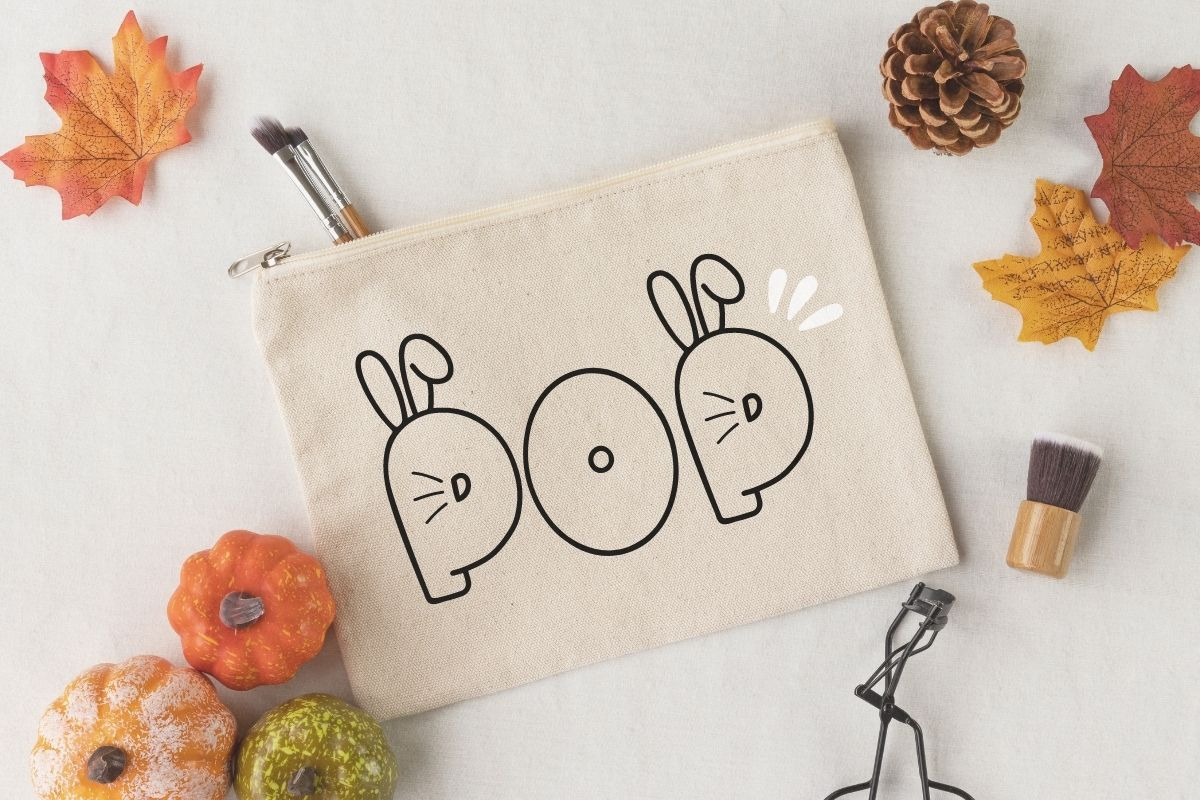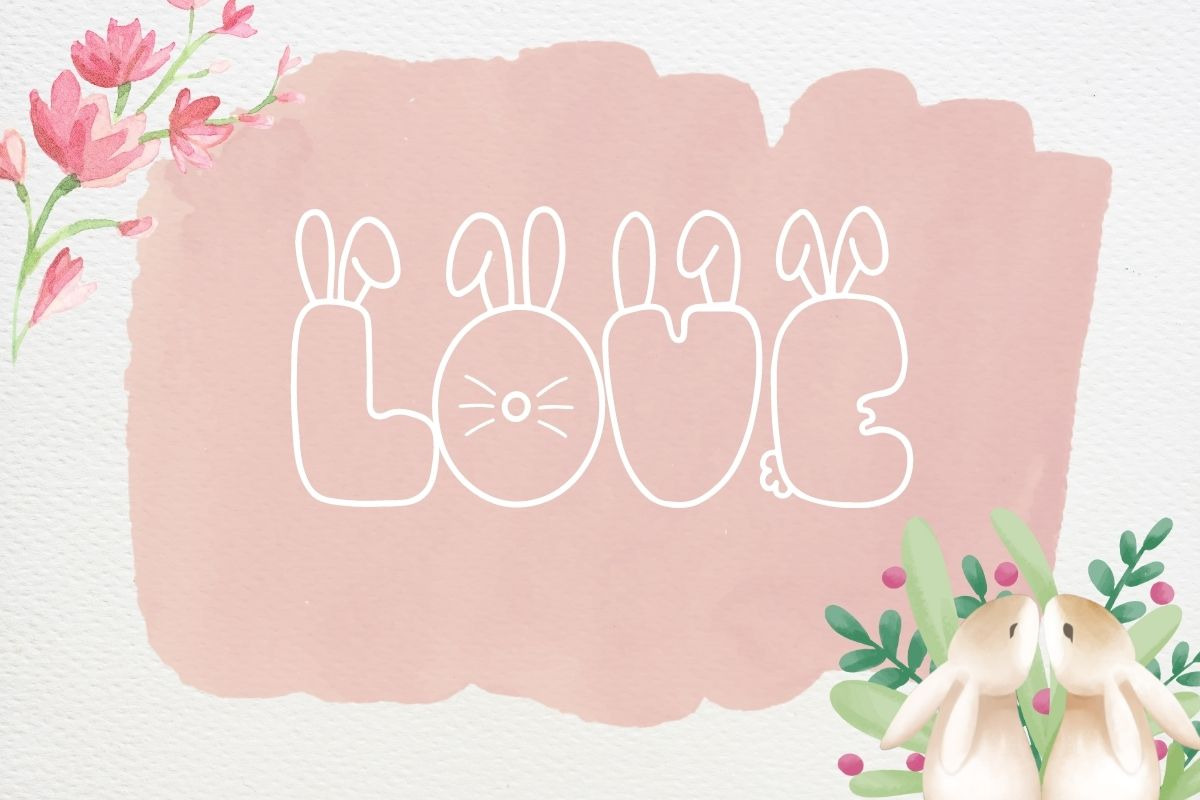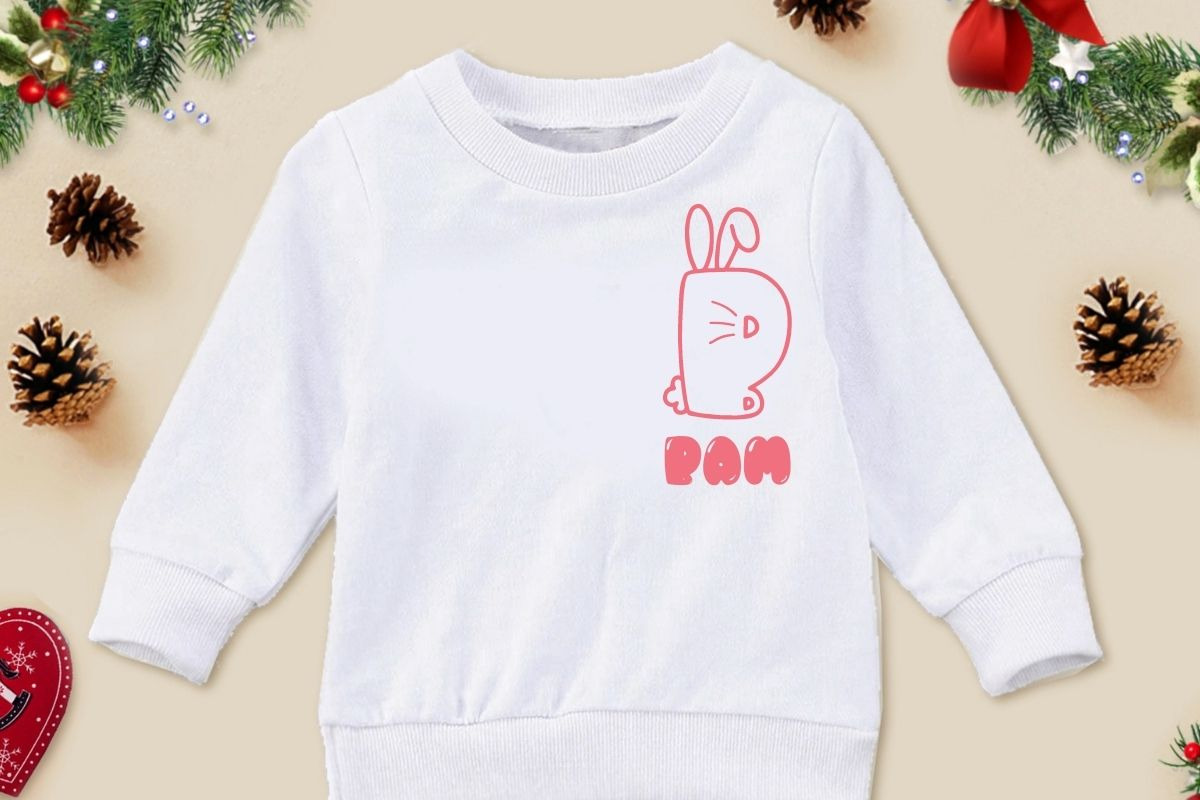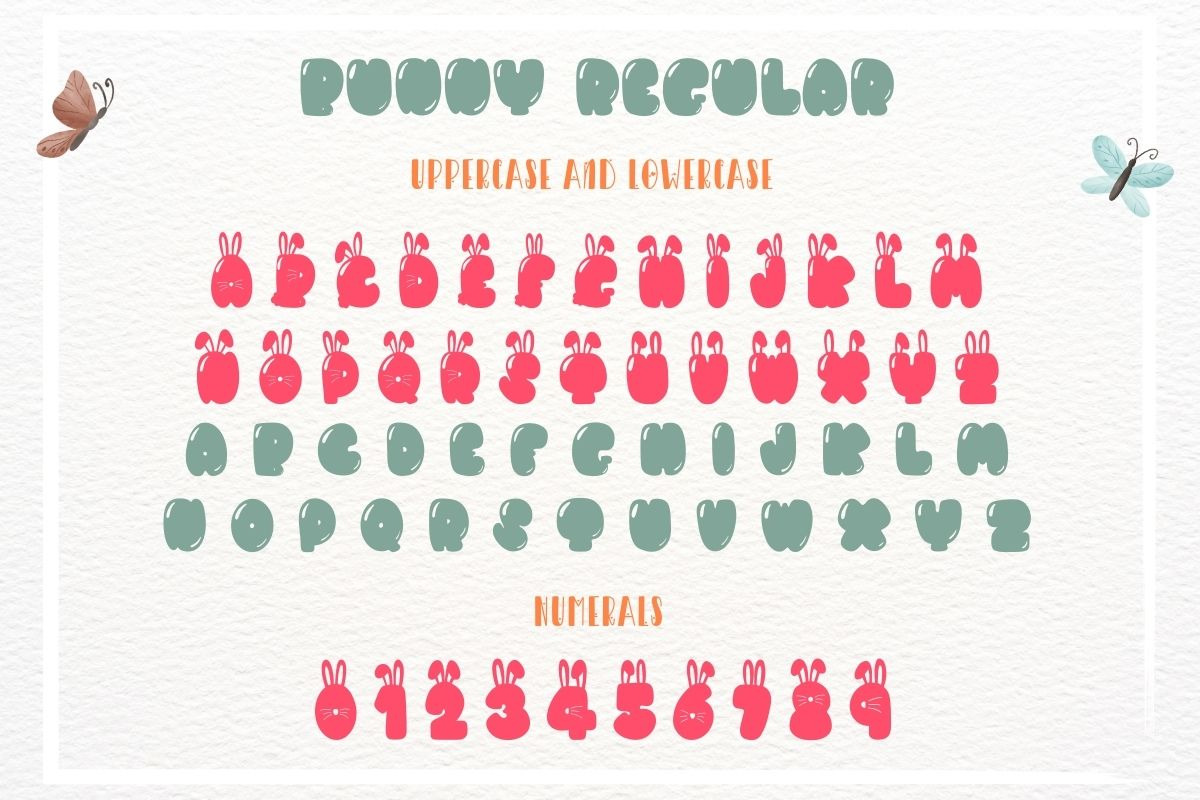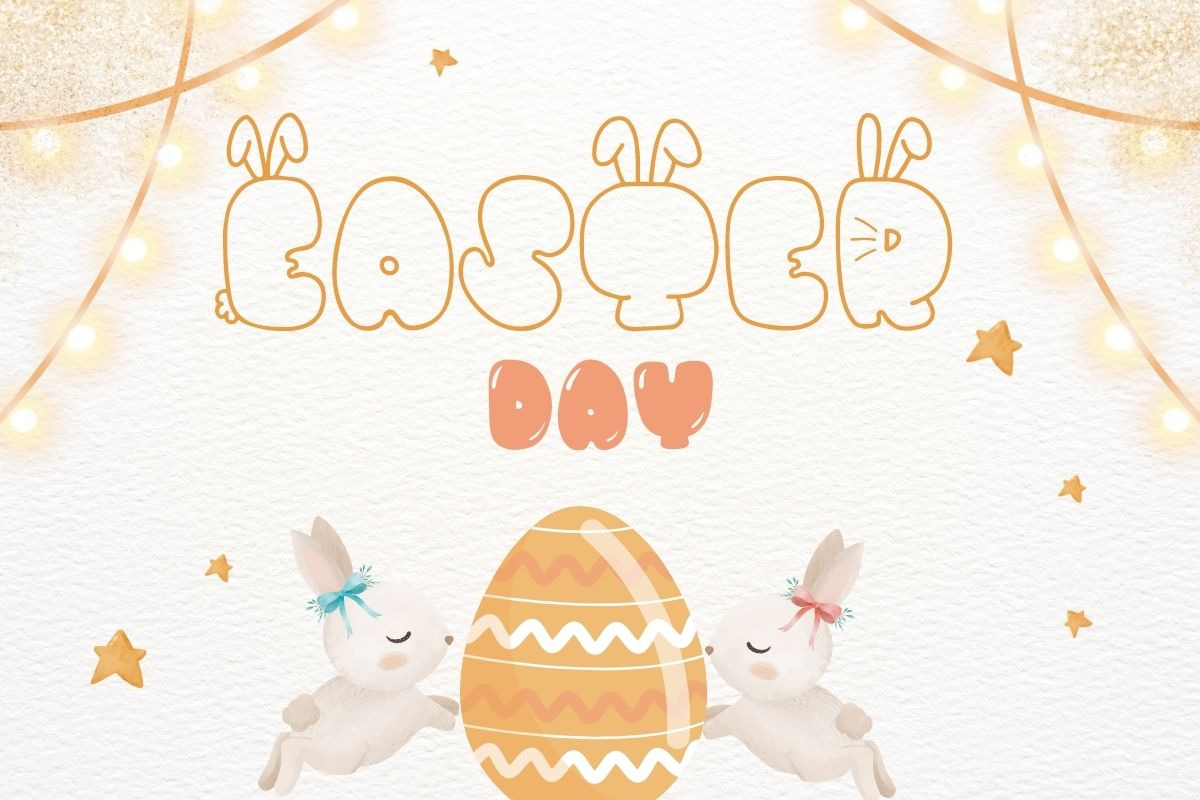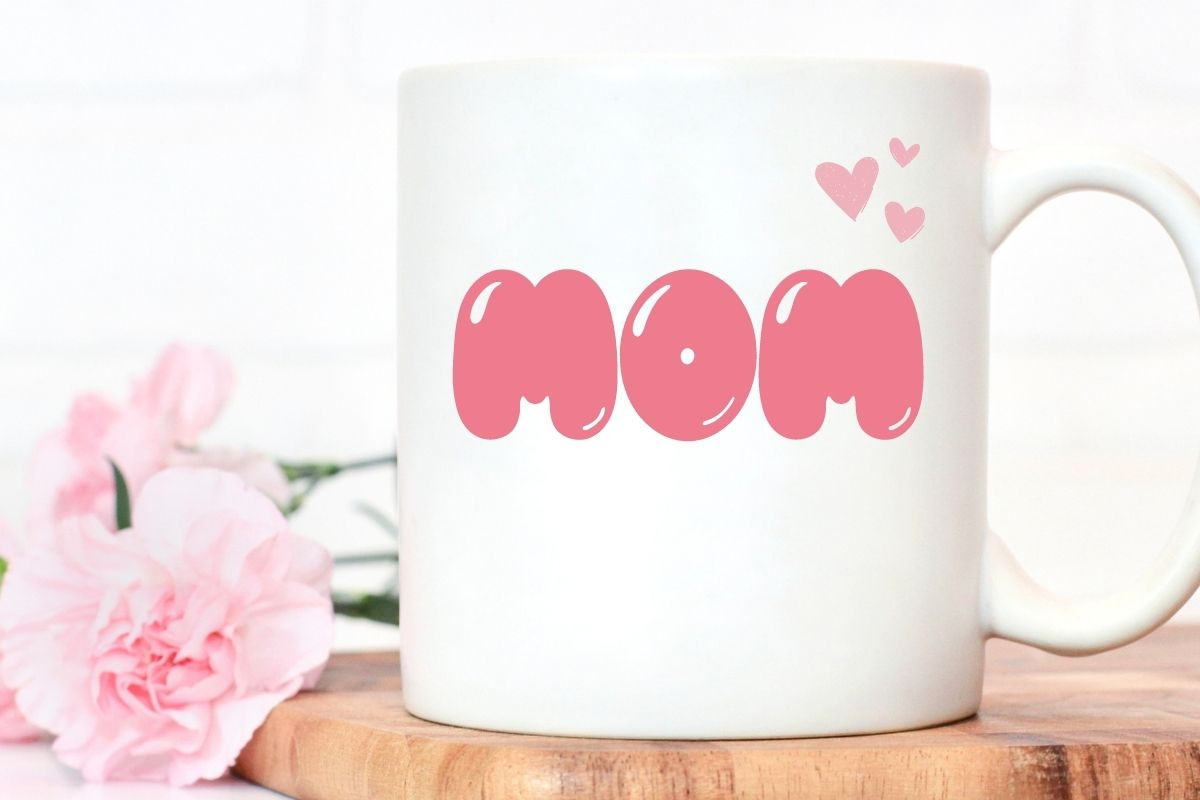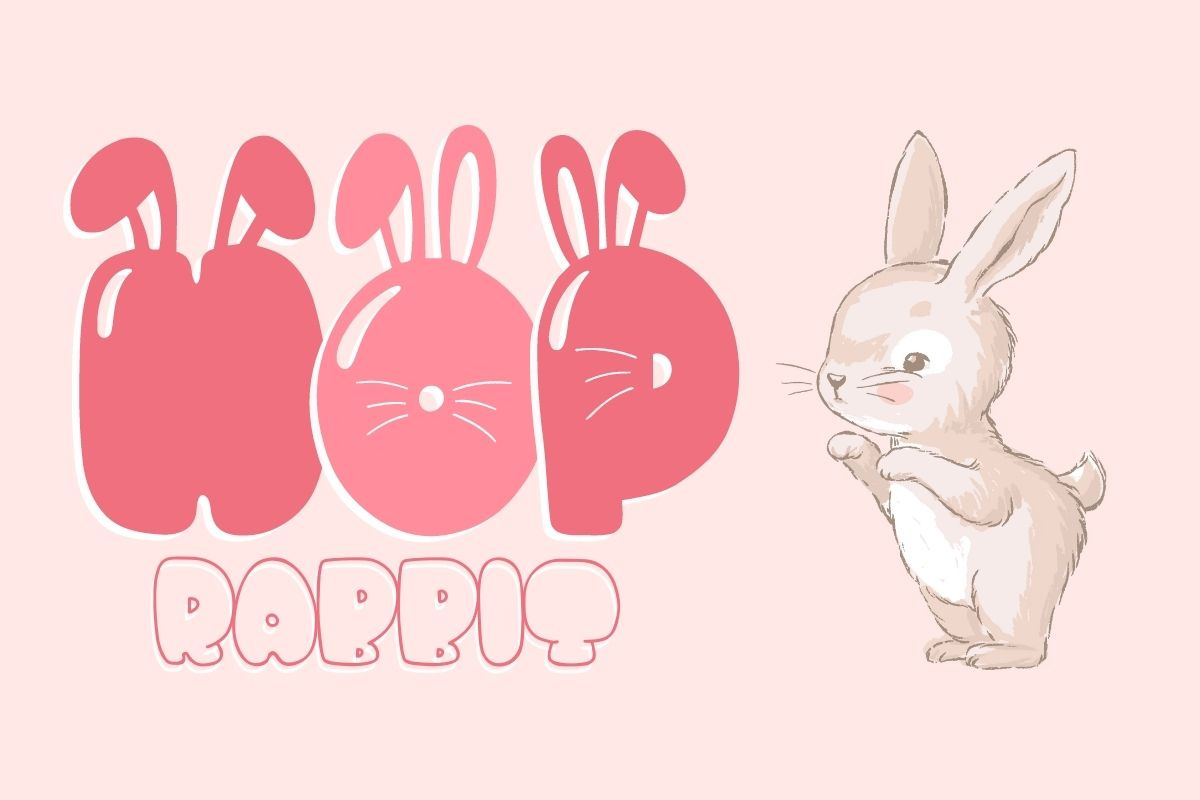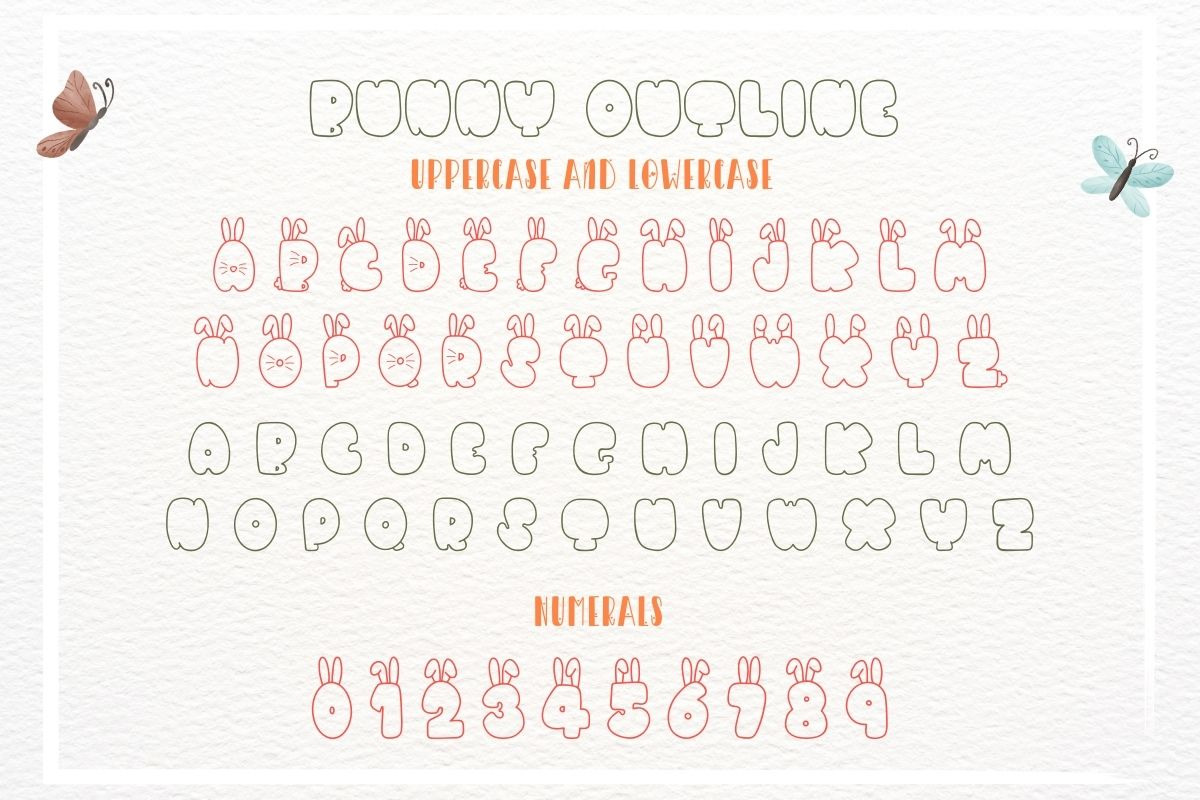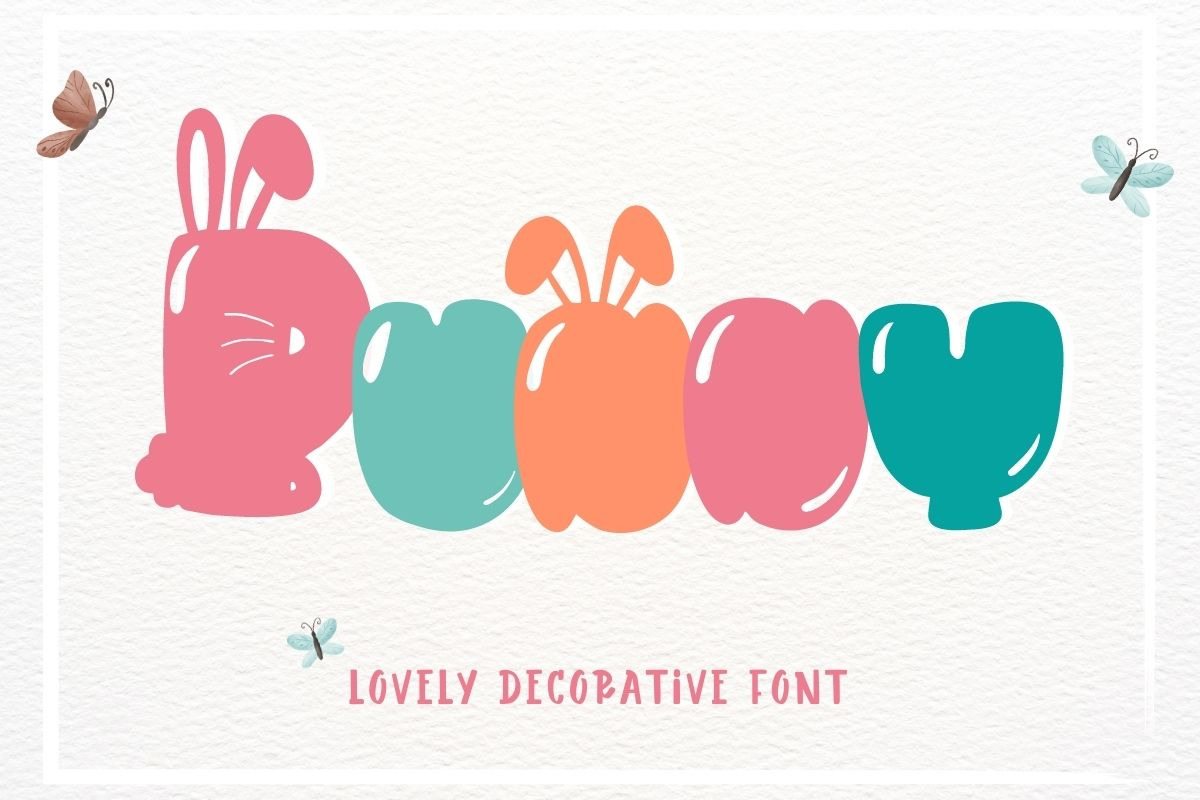
Bunny | Display Font
Bunny is lovely decorative font. This font will help you enjoy and have fun with your designs. You can use this font for any Easter Day theme. Perfect for creating a wide variety of new designs to match products such as banners, content, mugs, cards, shirts, stationery, social media posts, and more!